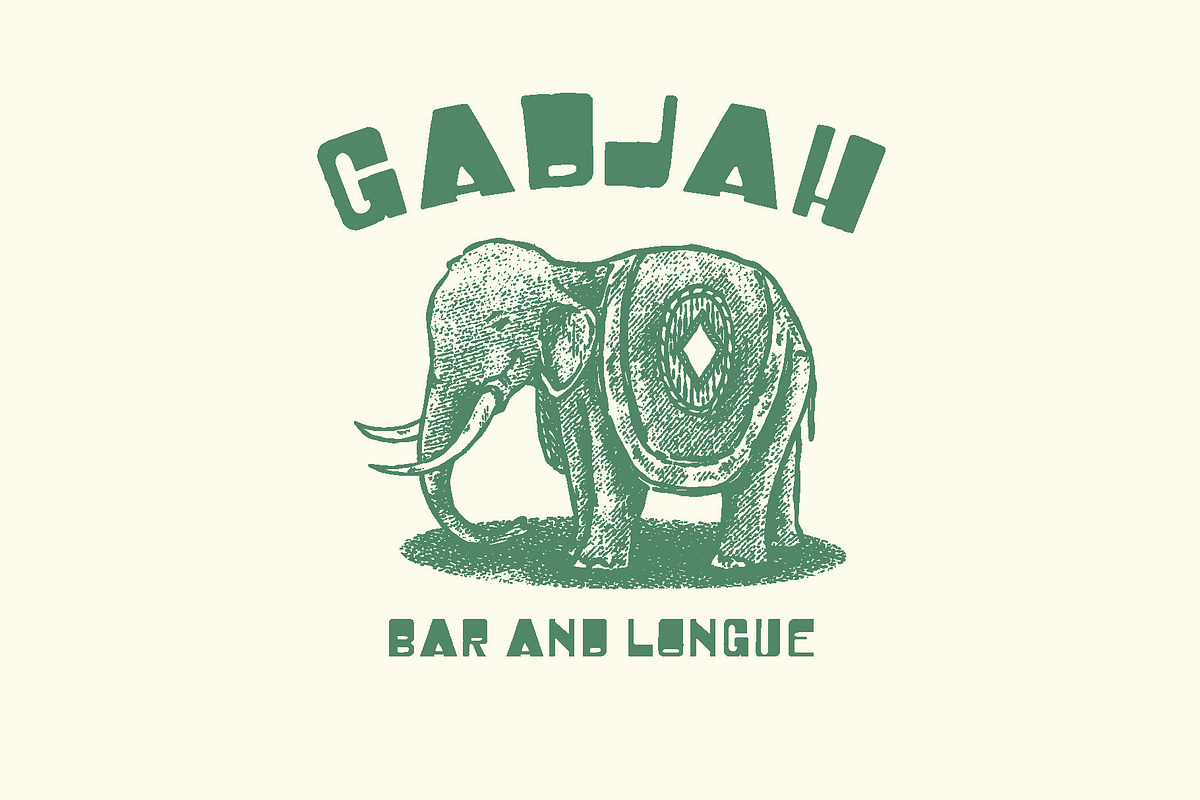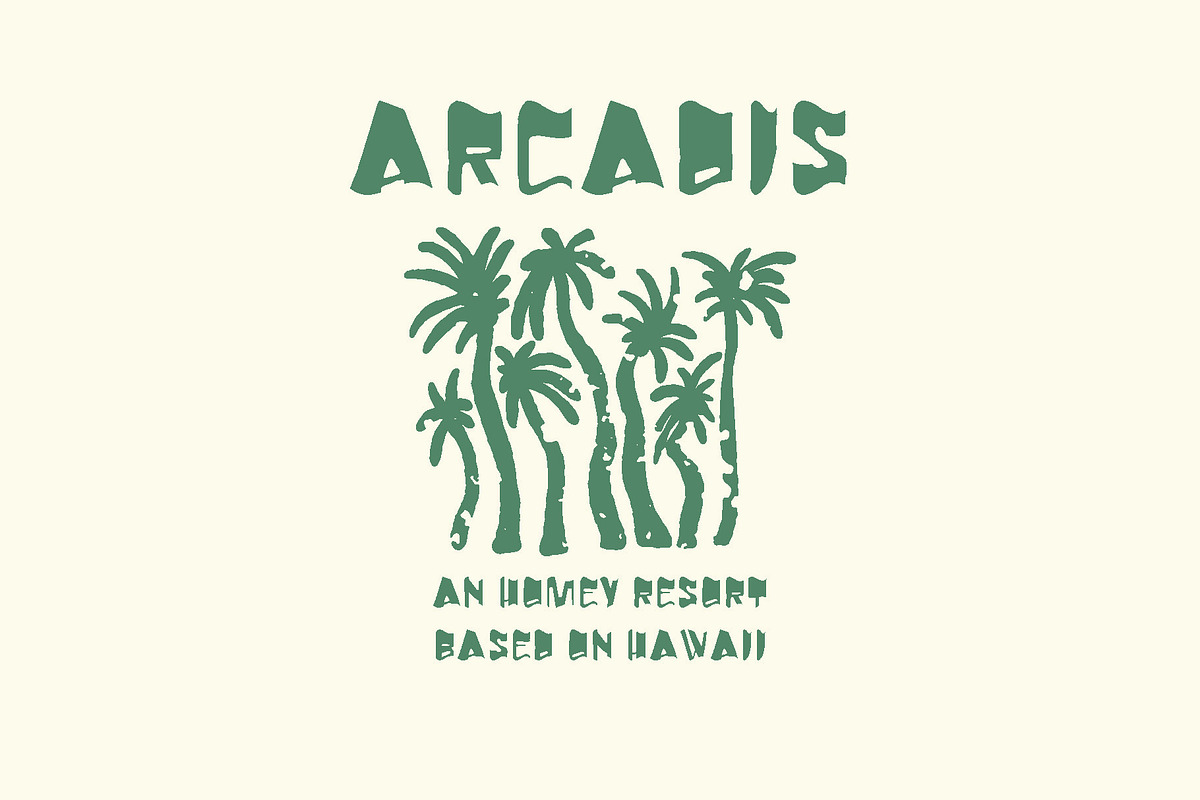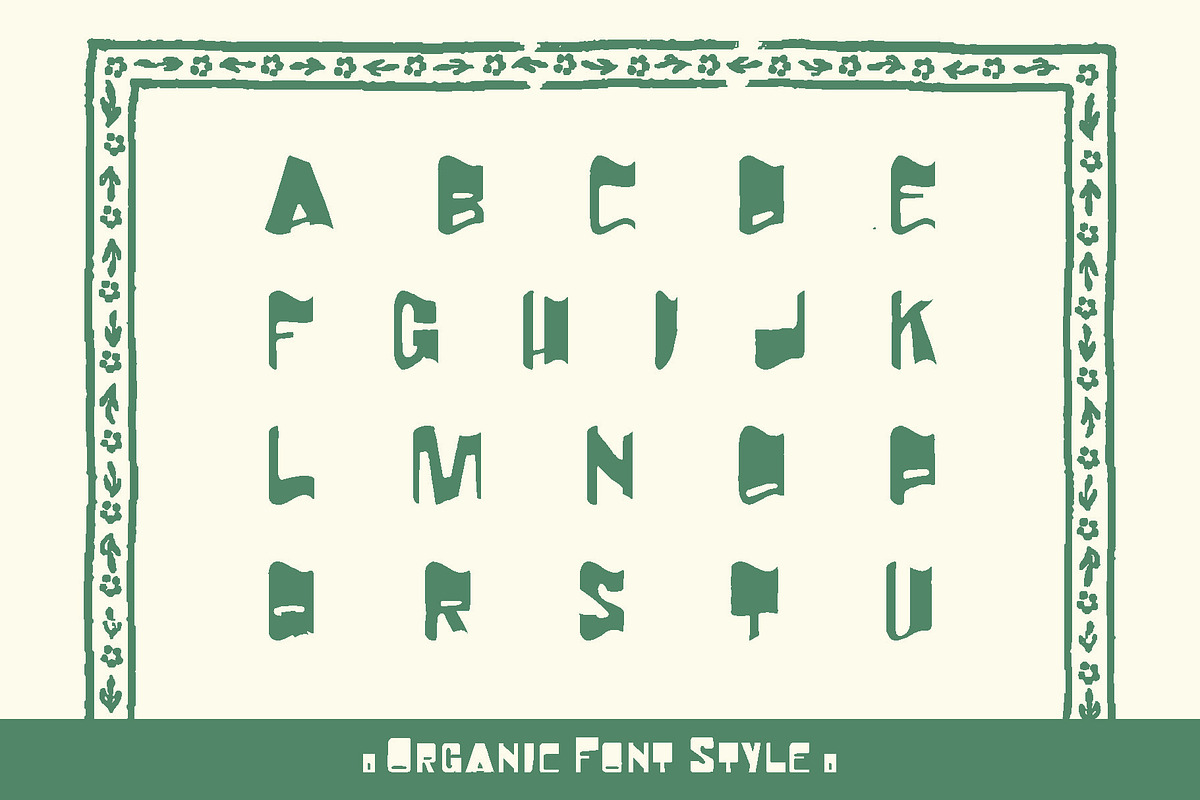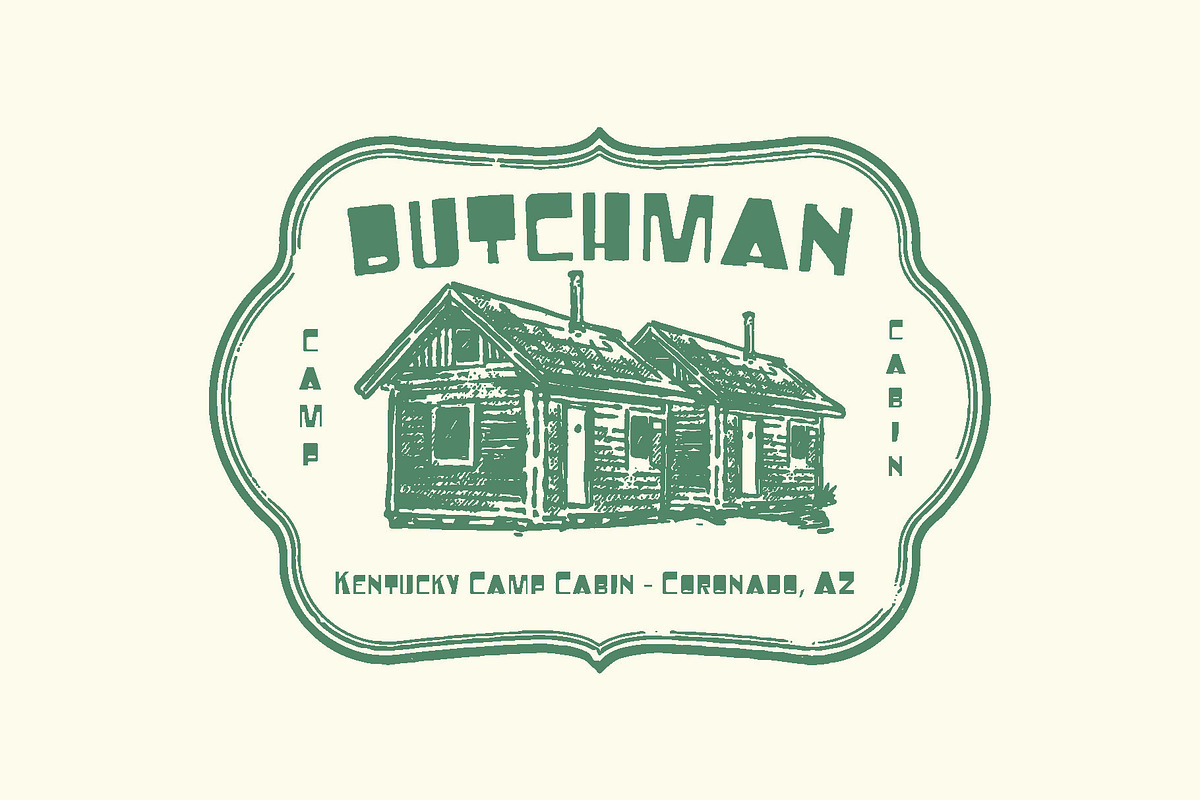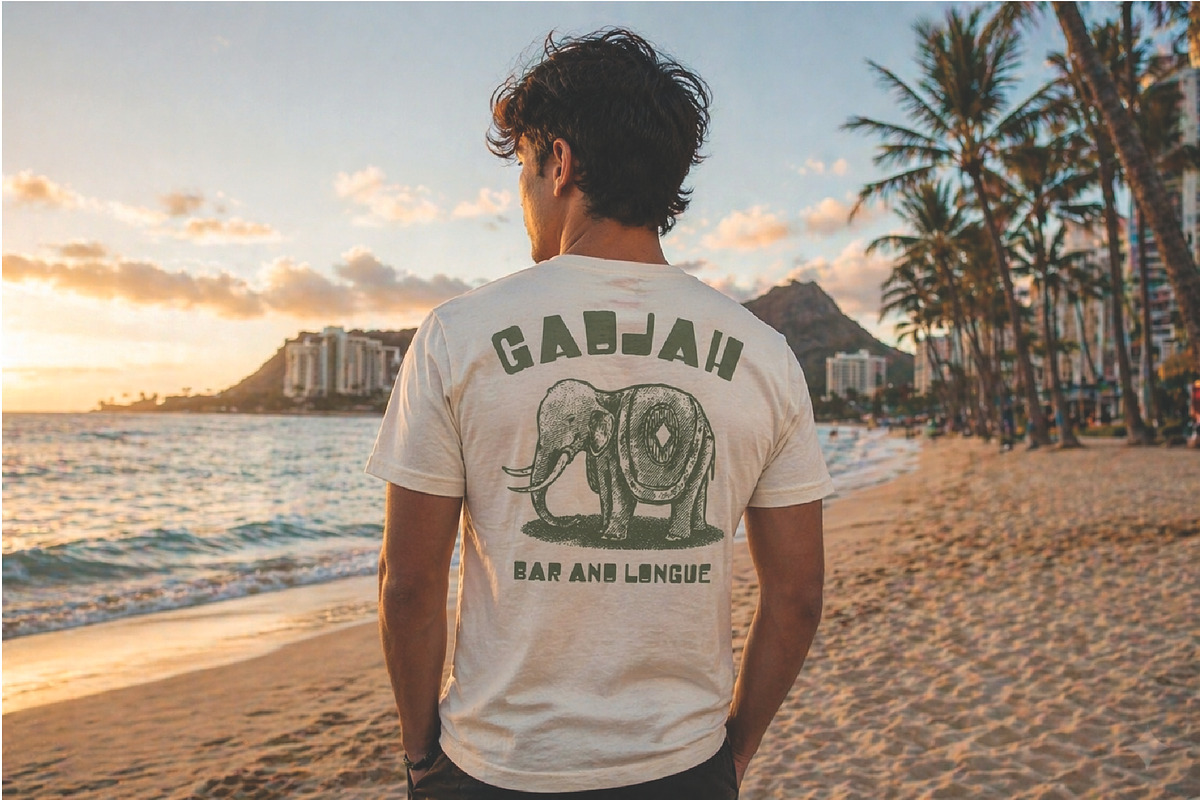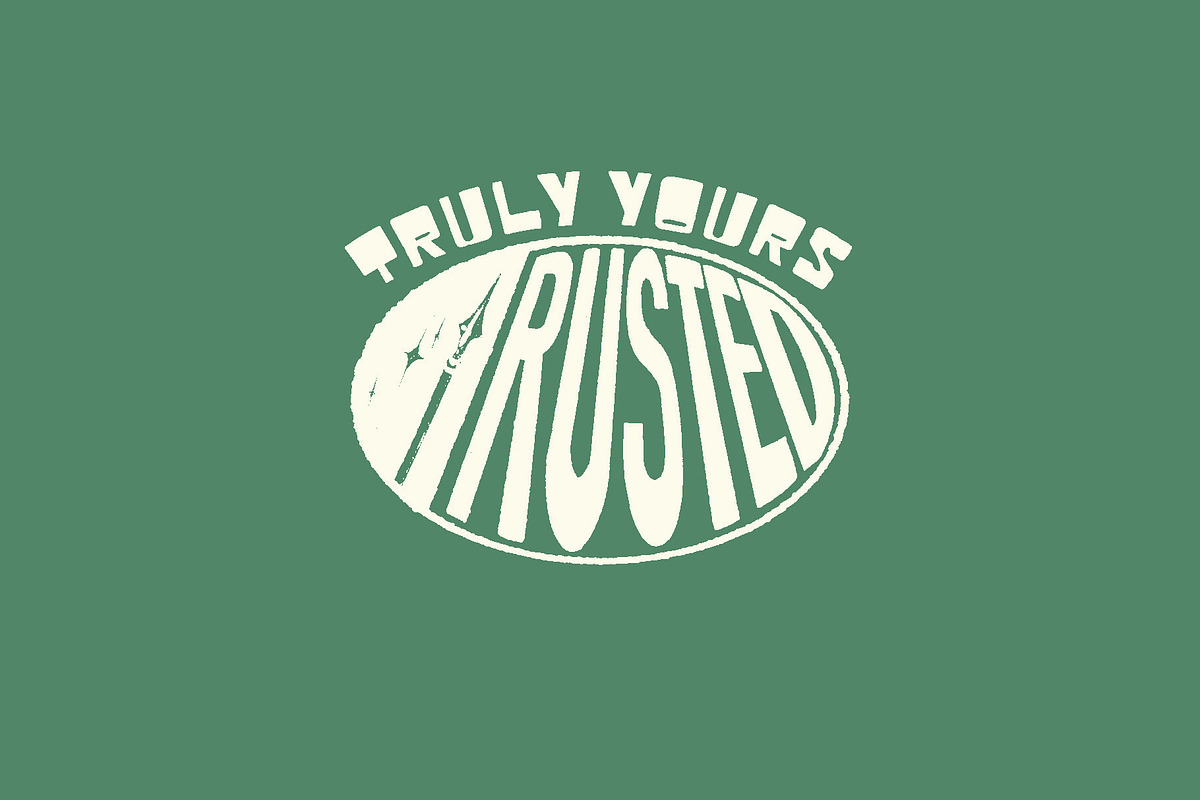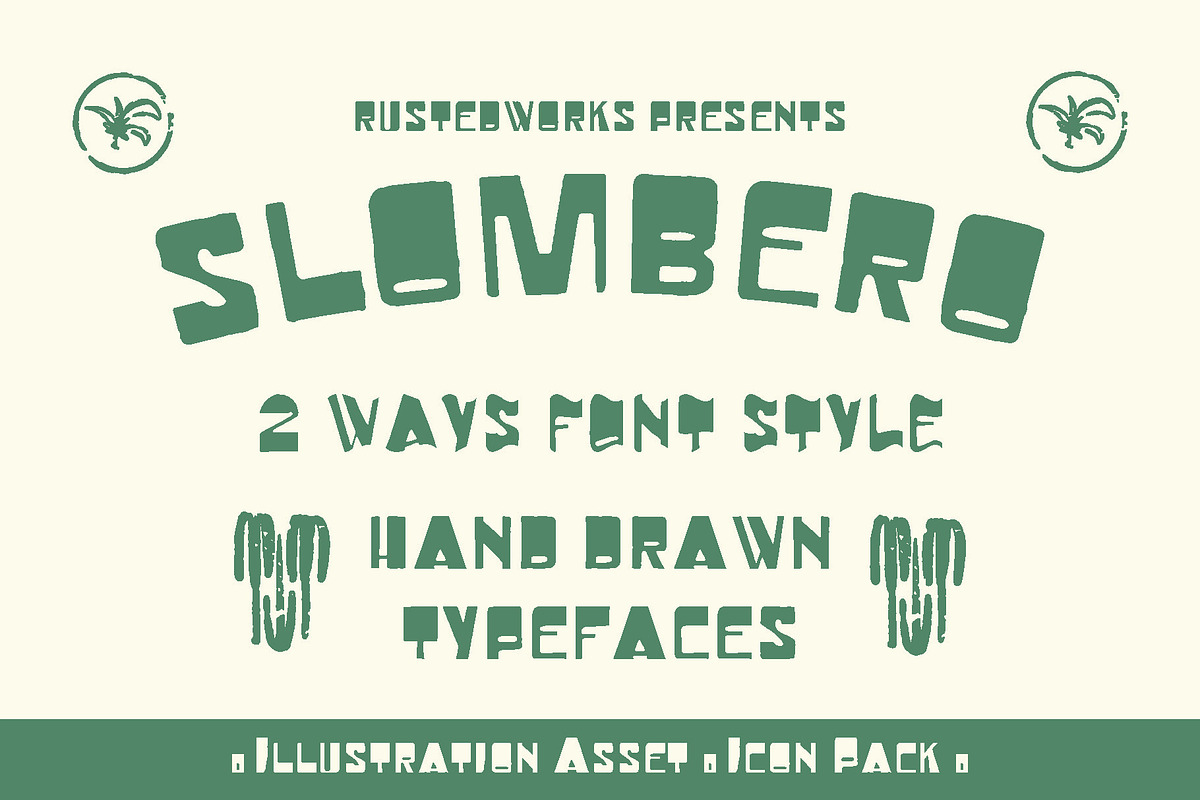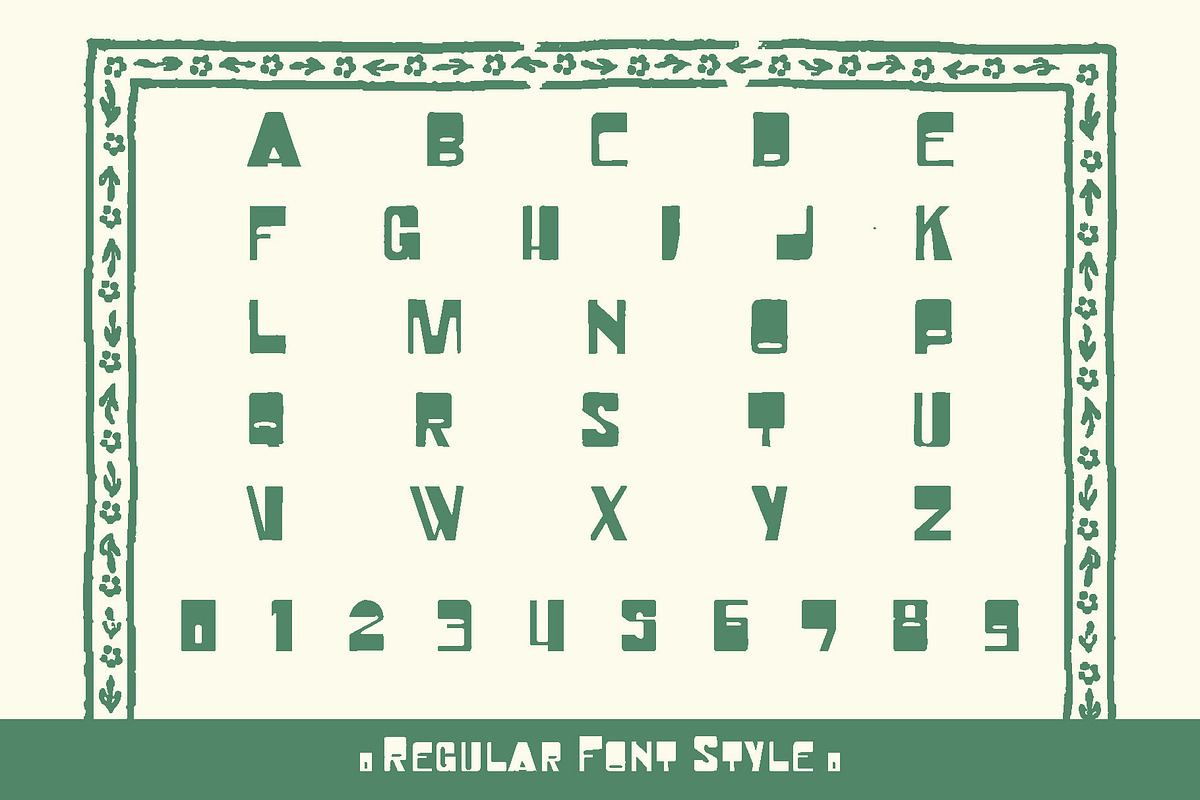
Slombero – Hand Drawn Font Duo
Slombero - hand drawn font duo featuring two unique styles in one playful package. Inspired by vintage surf culture, retro posters, and handcrafted lettering, this typeface brings a raw organic character that feels expressive.
Forged with imperfect edges and authentic handmade details, perfect for branding, logos, packaging, posters, apparel, social media graphics, album covers, stickers, editorial headlines, and creative merchandise.
Whether you want a strong chunky display look or a more experimental artistic vibe, Slumber gives you flexible styling options to create standout typography with nostalgic charm.